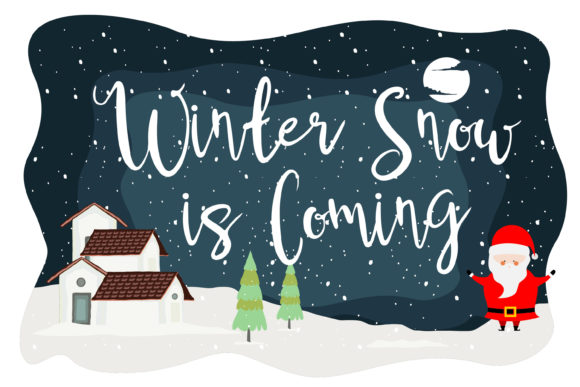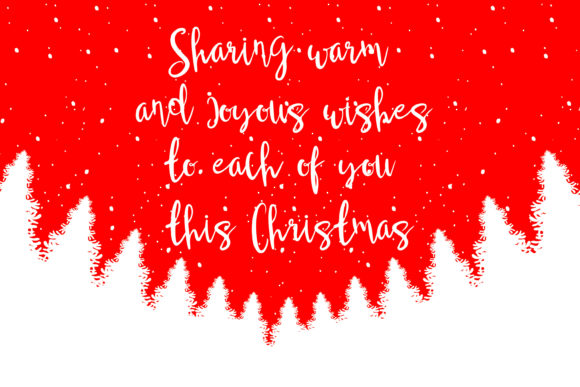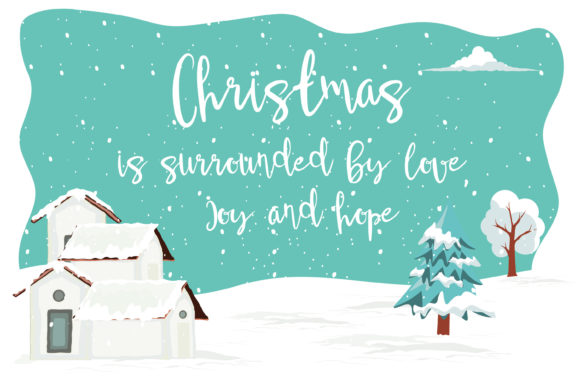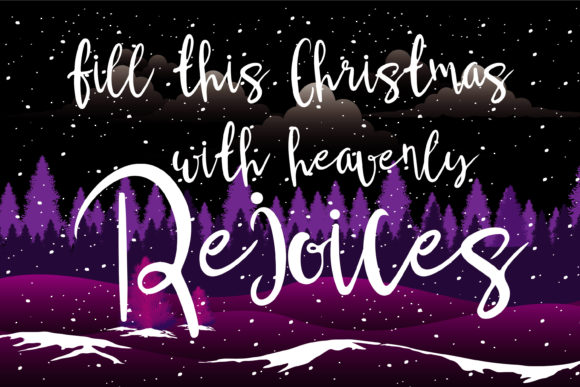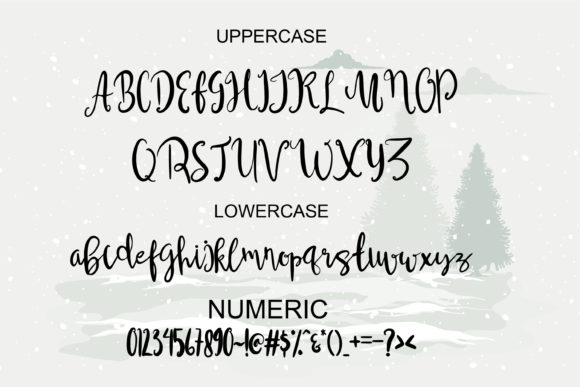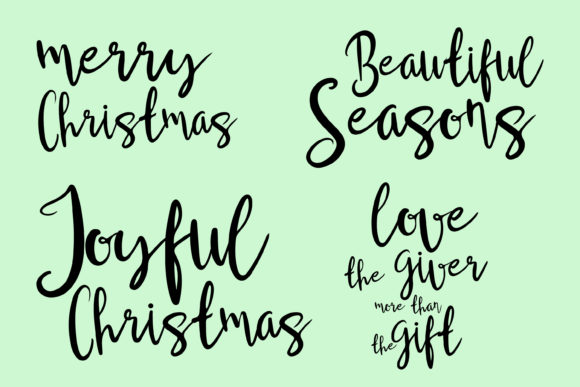
Introduction to Christmas Wisdom Font
Christmas Wisdom is a stylish and incredibly elegant script font.
It looks stunning on wedding invitations, thank you cards, quotes, greeting cards, logos, business cards and every other design which needs a handwritten touch Christmas Wisdom is PUA encoded which means you can access all glyphs and swashes with ease.
Key Features of Christmas Wisdom Font